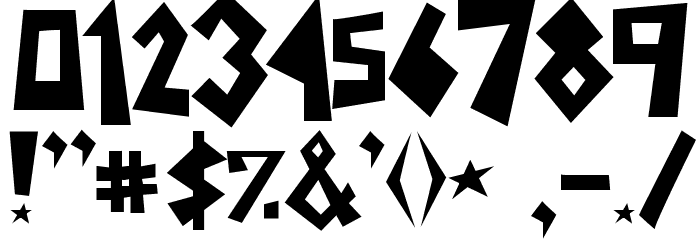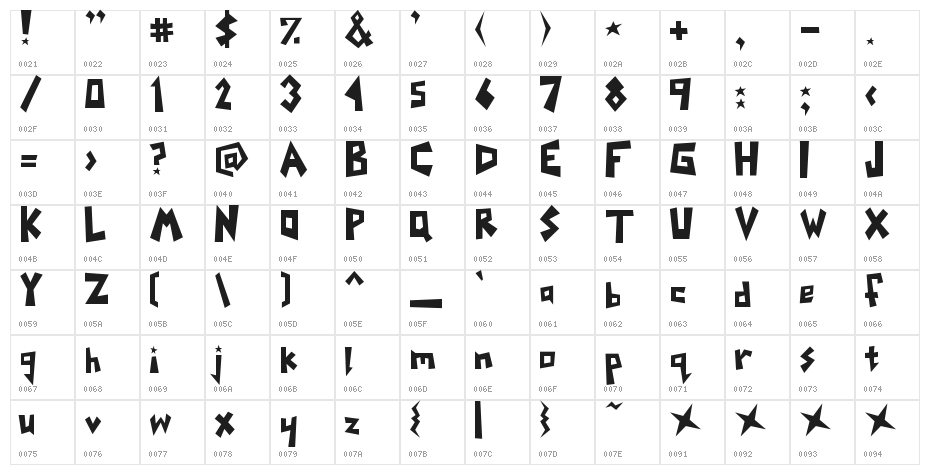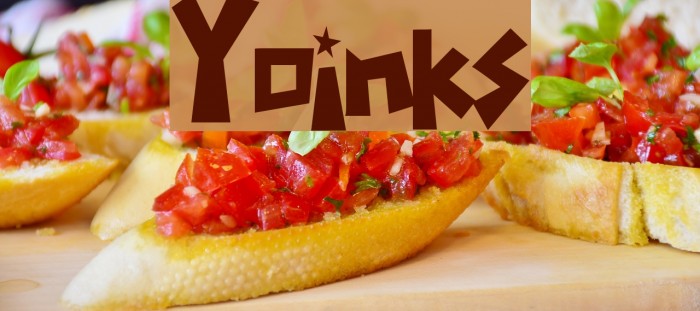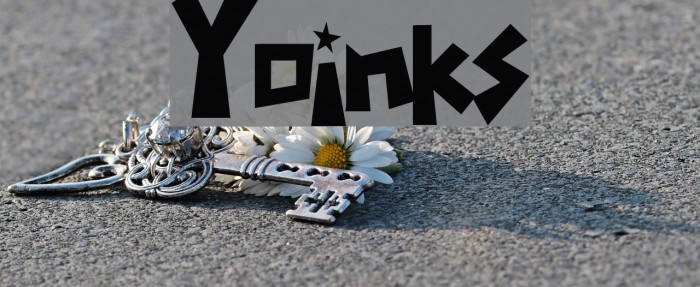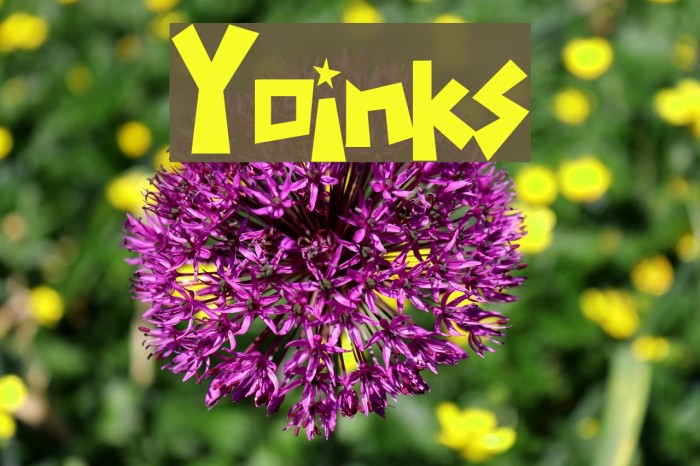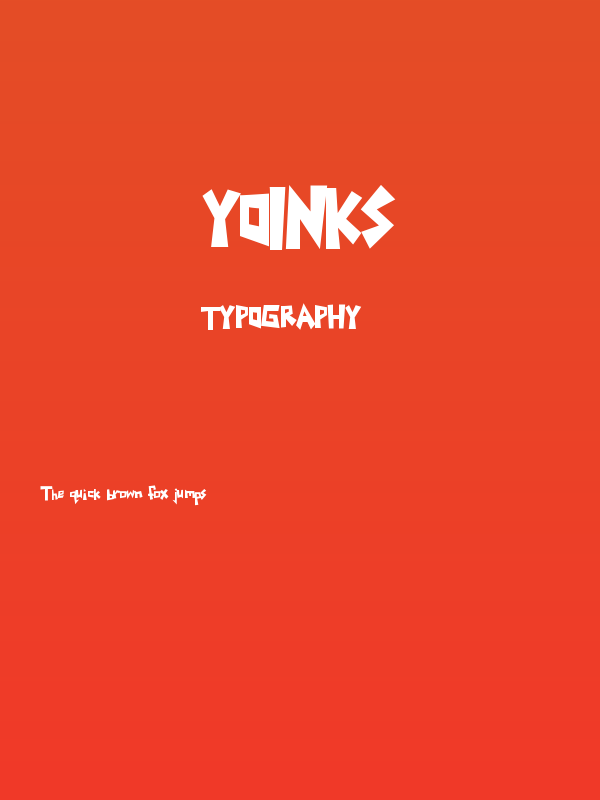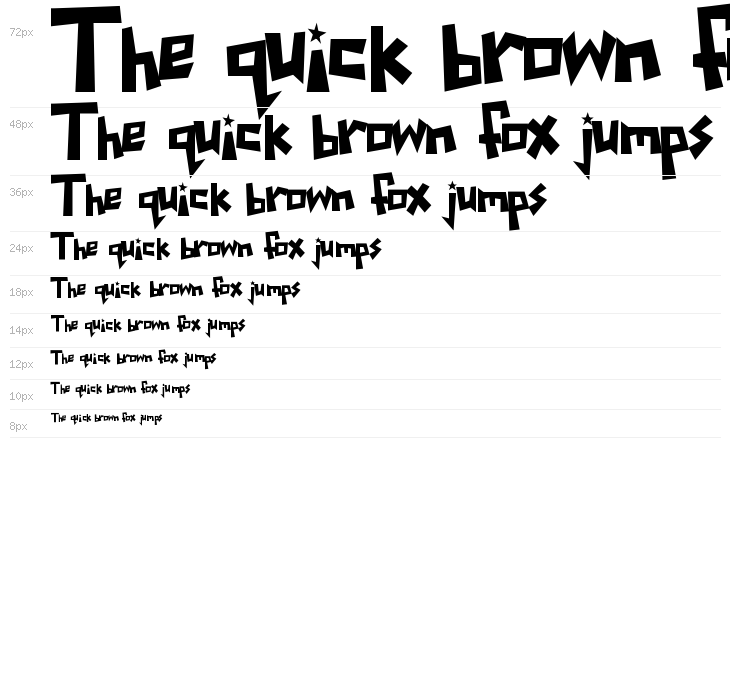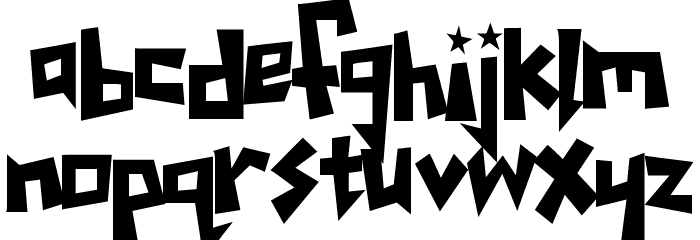
Yoinks Font
Yoinks Description
This font features a bold and edgy design with sharp, angular lines and a playful, rebellious spirit. The characters are highly stylized, with exaggerated geometric shapes that create a dynamic and energetic appearance. The uppercase and lowercase letters maintain a consistent style, while the numbers and special characters add to the font's unique personality. The boldness of the strokes and the irregular angles give it a distinctive, eye-catching look that stands out in any design.
| Proposed Projects | Ideal for projects that require a bold statement, such as posters, album covers, graffiti art, or branding for edgy and modern products. |